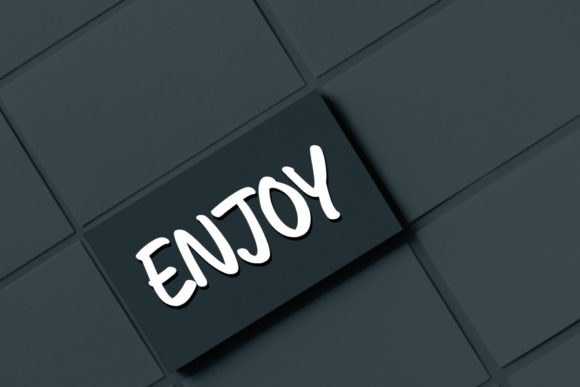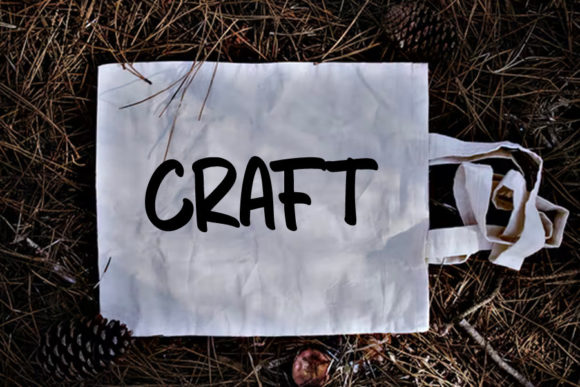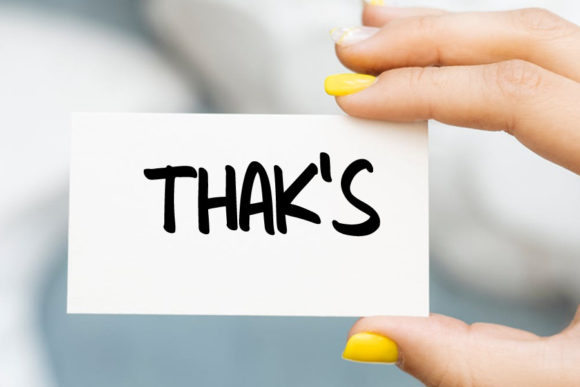
Brown Font: Elevate Your Designs with a Fresh and Beautiful Typeface
Are you tired of using the same old fonts for your designs? Look no further than Brown Font, a stunning and versatile typeface that’s perfect for a wide range of creative projects. Whether you’re a designer, crafter, or business owner, this font is sure to take your work to the next level.
What Makes Brown Font So Special?
Brown Font is a fresh and beautiful font that’s specifically designed to help you create stunning visual content. Its unique and simple design makes it perfect for a variety of applications, from YouTube banners and cover logo mockups to wedding invitations, ID cards, flyers, and crafts.
Key Features of Brown Font
- Fresh and Beautiful Design: Brown Font boasts a modern and elegant design that’s sure to catch the eye.
- Versatile: Use it for a wide range of projects, from digital content to print materials.
- Simple and Unique: The font’s simplicity makes it easy to read and use, while its uniqueness sets it apart from more generic fonts.
- High-Quality: Brown Font is designed to deliver crisp and clear results, even at small sizes.
How Brown Font Can Elevate Your Designs
By using Brown Font, you can add a touch of elegance and sophistication to your designs. Its clean lines and simple shapes make it perfect for creating visual content that’s both modern and timeless.
Perfect for Digital Content Creators
If you’re a YouTuber, blogger, or social media influencer, Brown Font is a great choice for creating eye-catching banners, thumbnails, and other visual content. Its bold and beautiful design is sure to help you stand out from the crowd and attract more viewers.
Ideal for Crafters and Makers
Crafters and makers will love Brown Font for its versatility and ease of use. Use it to create beautiful wedding invitations, custom ID cards, or stunning flyers for your next event.
Great for Businesses and Entrepreneurs
If you’re a business owner or entrepreneur, Brown Font can help you create a professional and cohesive brand image. Use it for your logo, website, or marketing materials to add a touch of sophistication and elegance.
Tips for Using Brown Font Effectively
- Experiment with Different Sizes: Brown Font looks great at a variety of sizes, from small and delicate to large and bold.
- Pair it with Other Fonts: Try pairing Brown Font with other fonts to create a unique and eye-catching combination.
- Use it Consistently: Use Brown Font consistently across all your designs to create a cohesive brand image.
In conclusion, Brown Font is a fresh and beautiful font that’s perfect for designers, crafters, and business owners. Its unique and simple design makes it versatile and easy to use, while its high-quality design ensures crisp and clear results. Whether you’re creating digital content, print materials, or visual branding, Brown Font is a great choice.